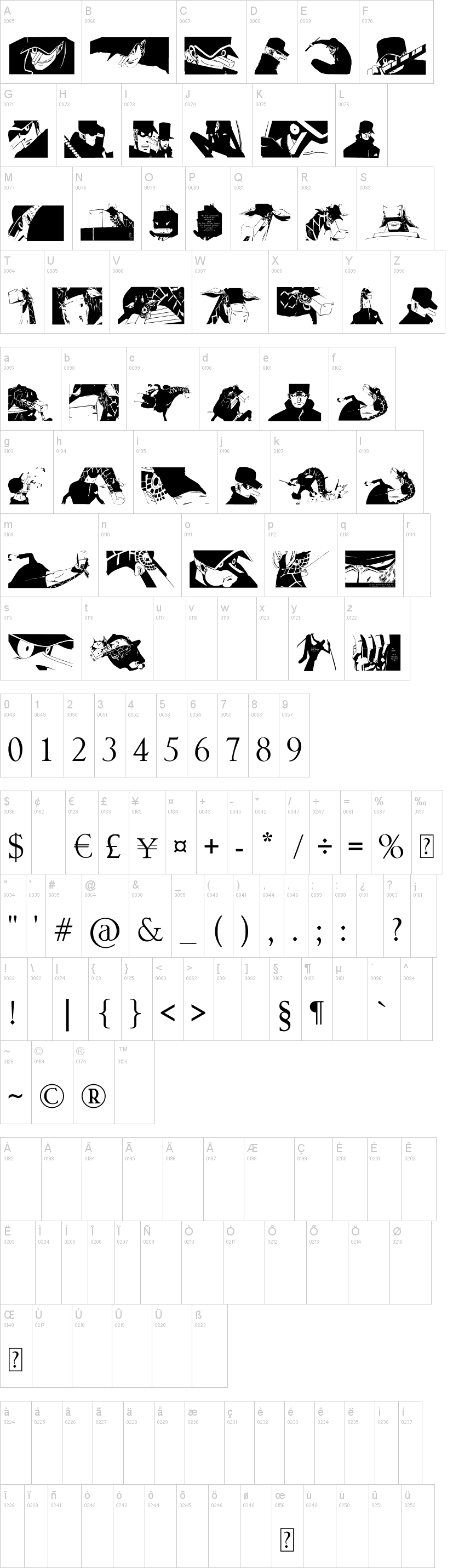
Note of the authorthis is the first one piece font. Create by Skulls a tribute to the CP9 agent's: Kaku. This is the one of other font (the other fonts will be available soon) with a tribute to the characters of one piece and Eiichiro Oda.